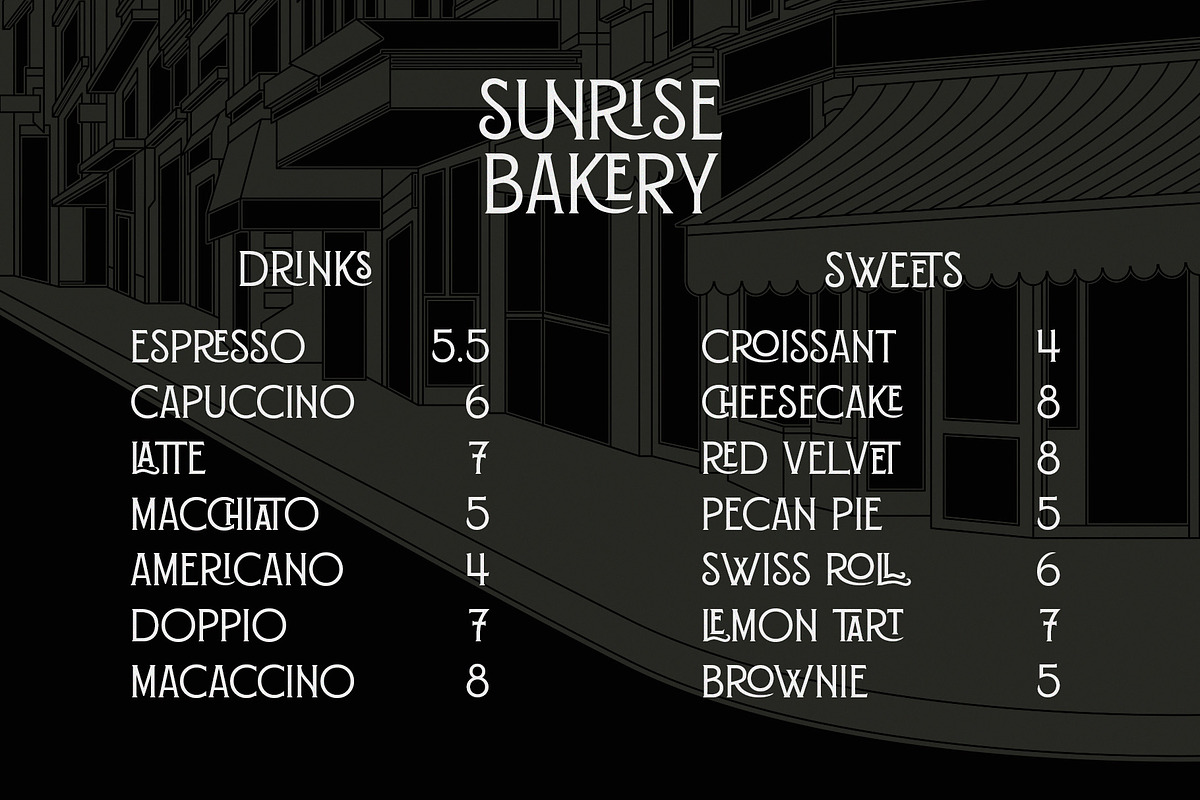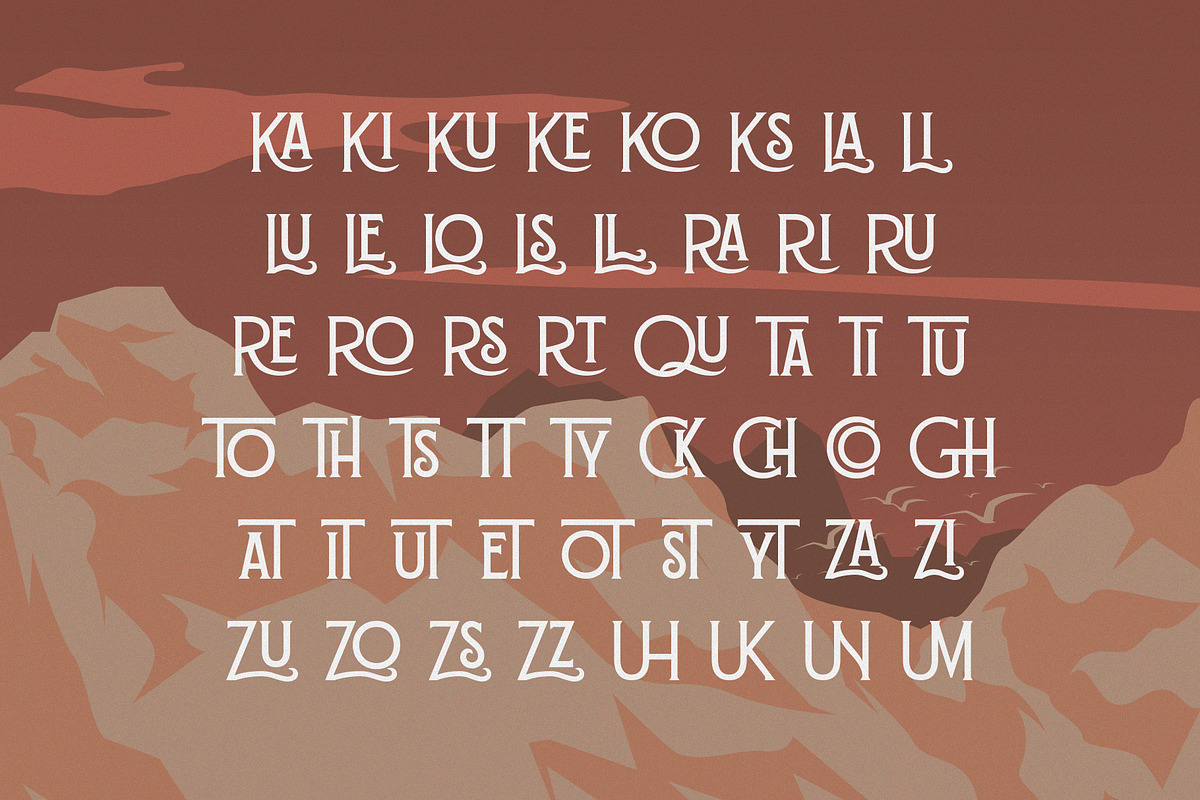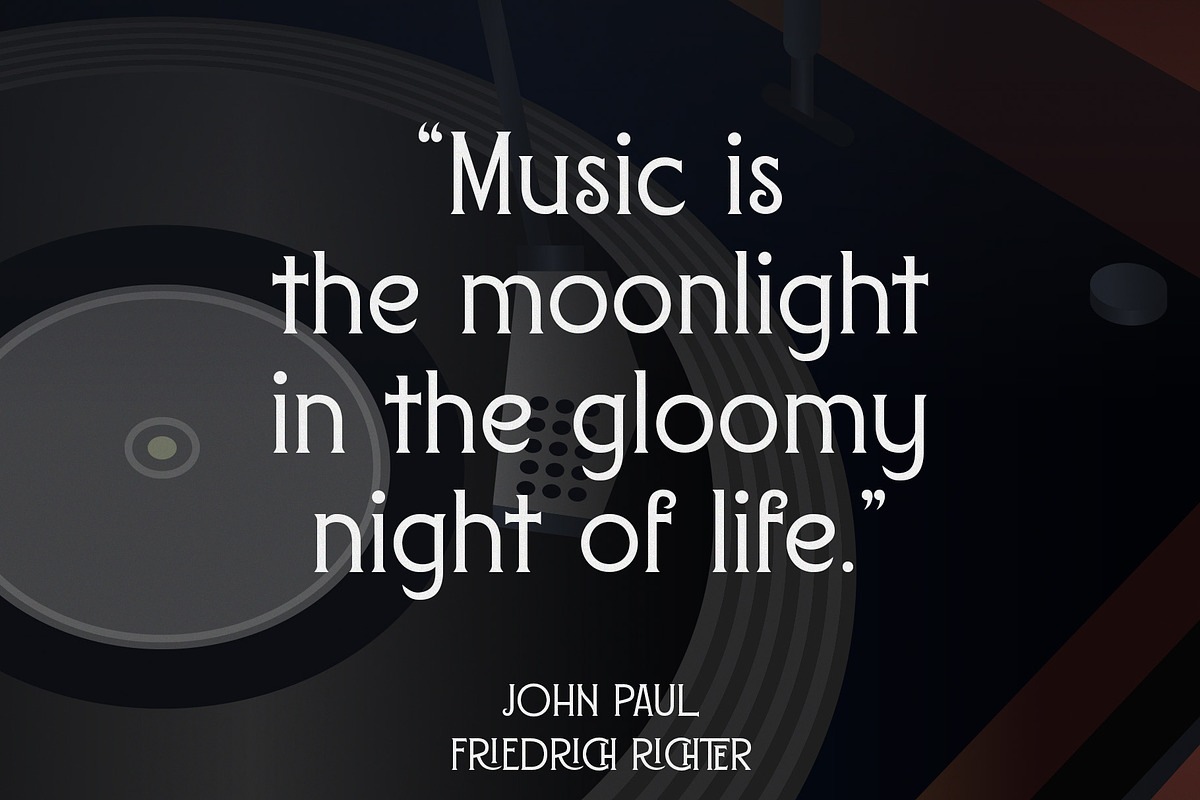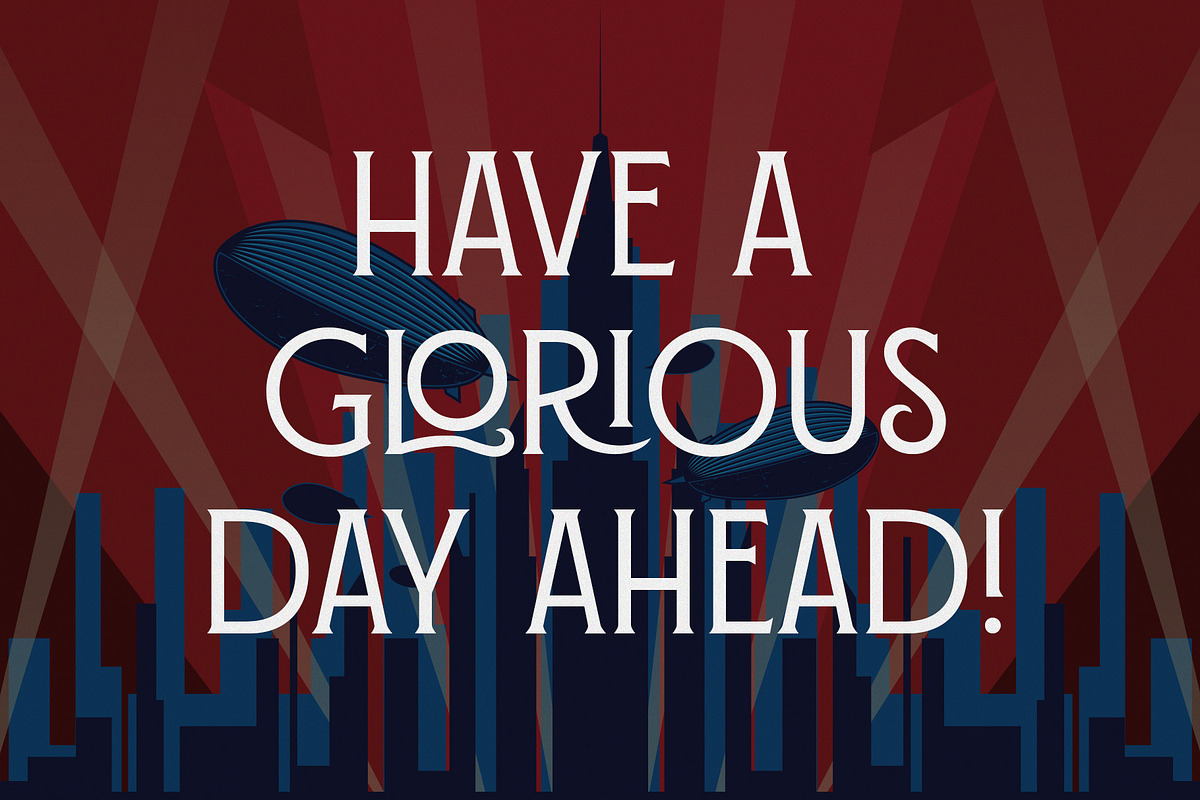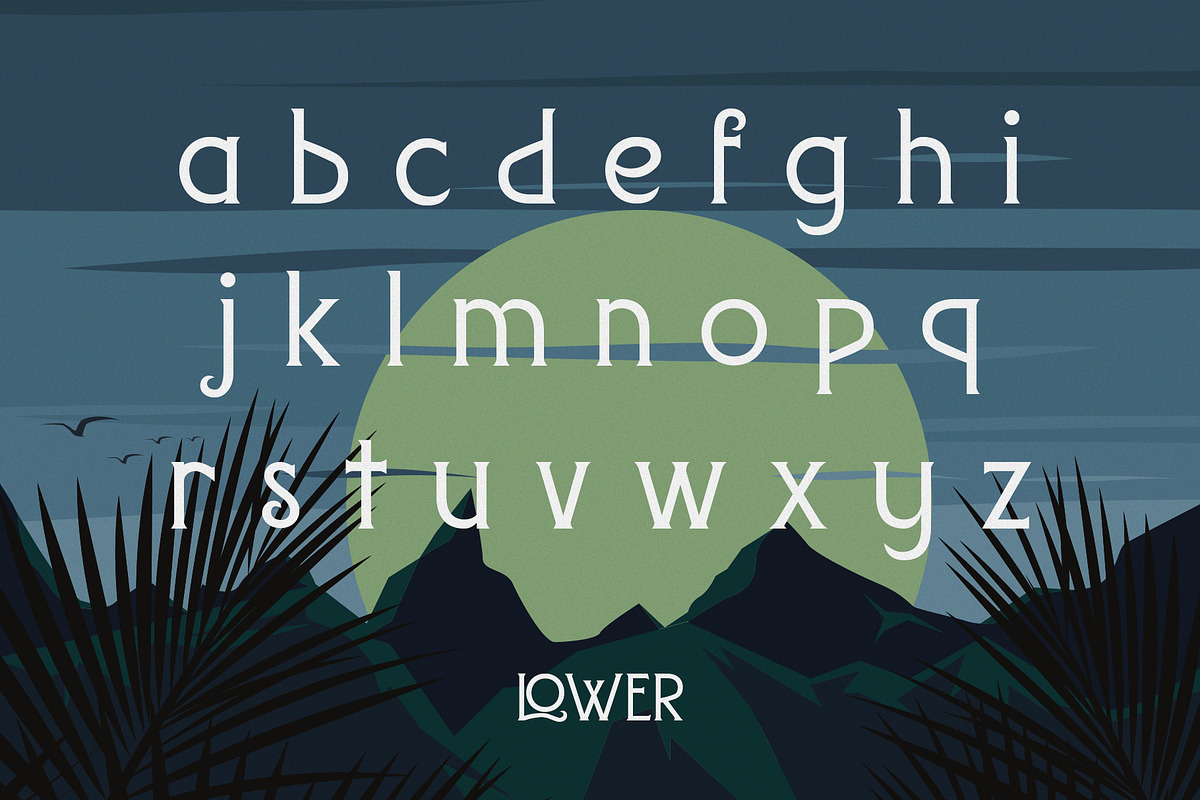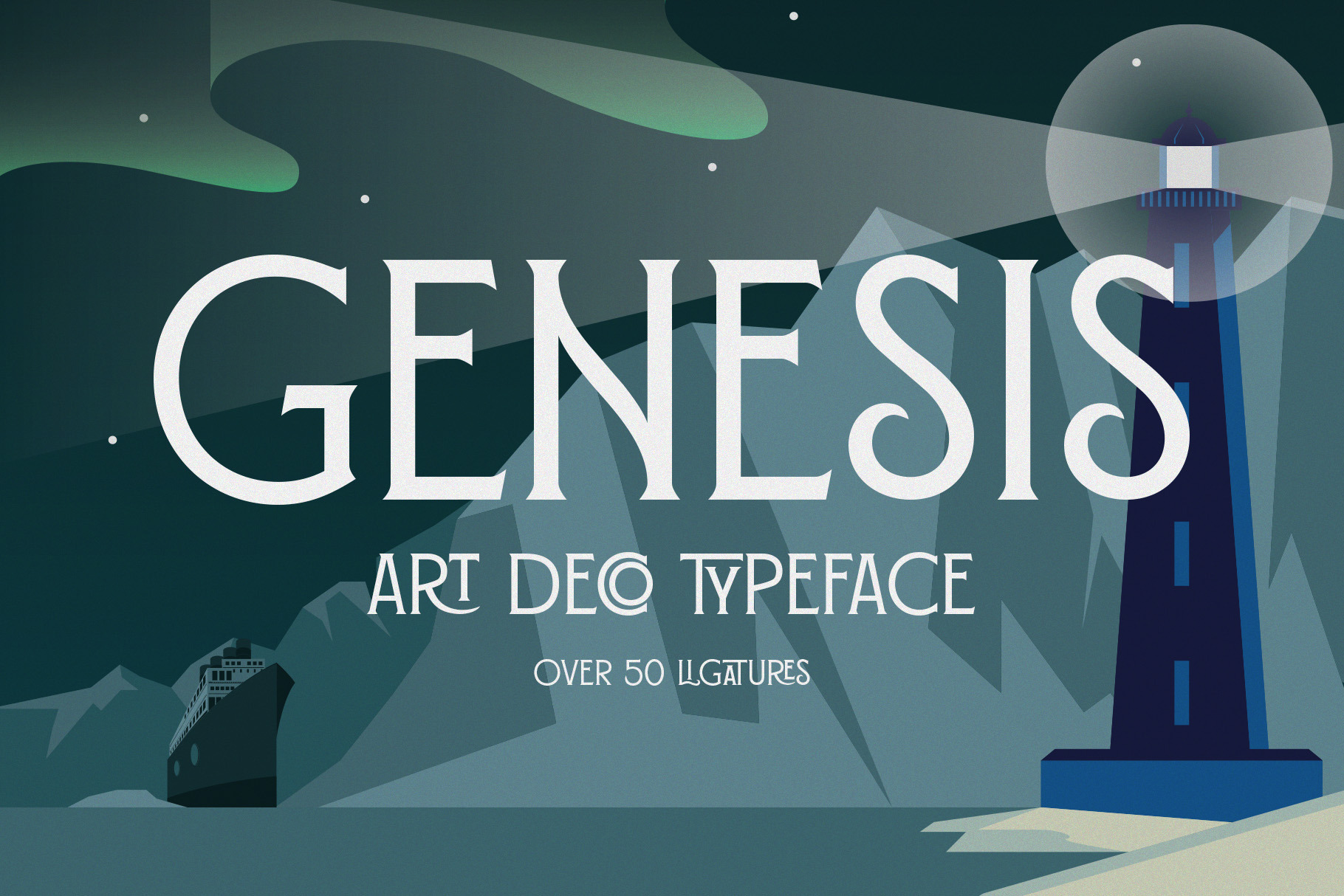
Genesis - Art Deco Typeface
Step into the golden age of design with Genesis, a condensed Art Deco-inspired typeface that effortlessly bridges the past and present. With sleek lines, geometric finesse, and just the right amount of flair, Genesis exudes vintage character while staying clean, restrained, and remarkably modern.
Featuring over 50 elegant ligatures, Genesis offers boundless typographic flexibility. Whether you're creating standout headlines, stylish magazine layouts, luxurious branding, or timeless book covers, this typeface delivers sophistication and clarity in every glyph.
Sharp. Sophisticated. Striking. Genesis is your foundation for bold, beautiful design—built to impress and crafted to endure.